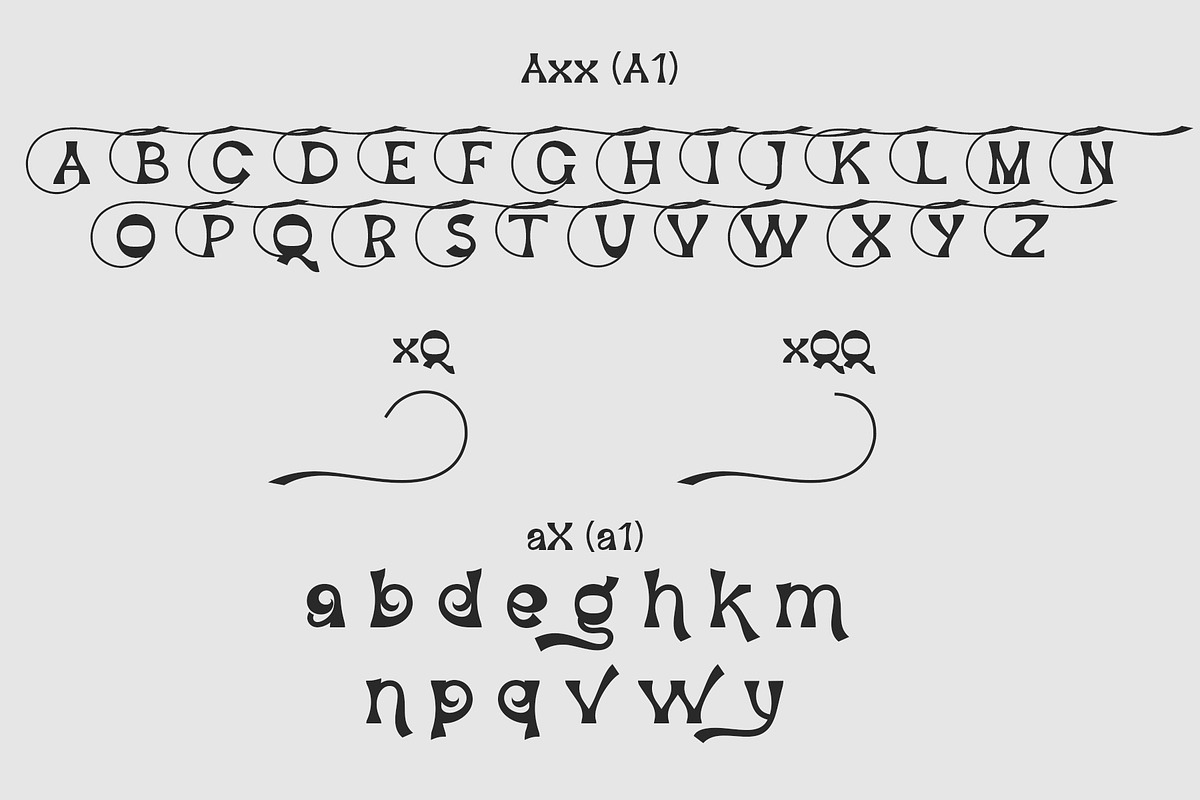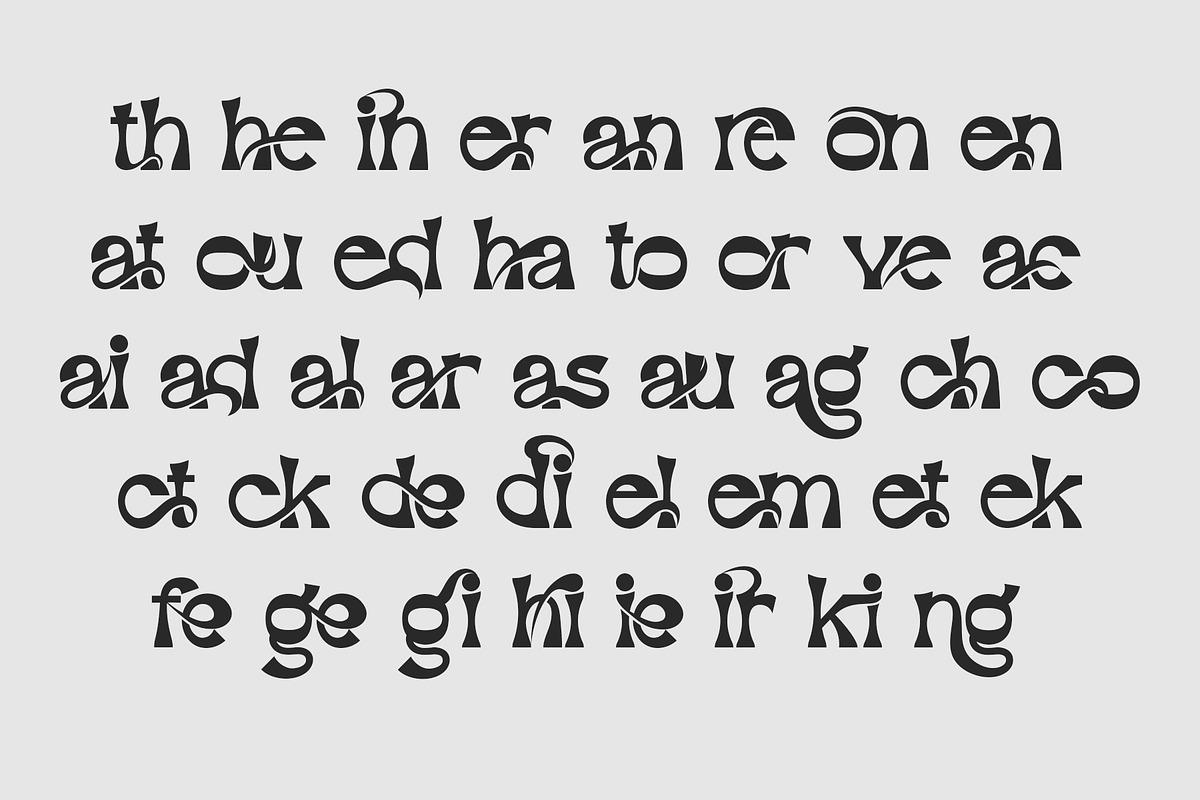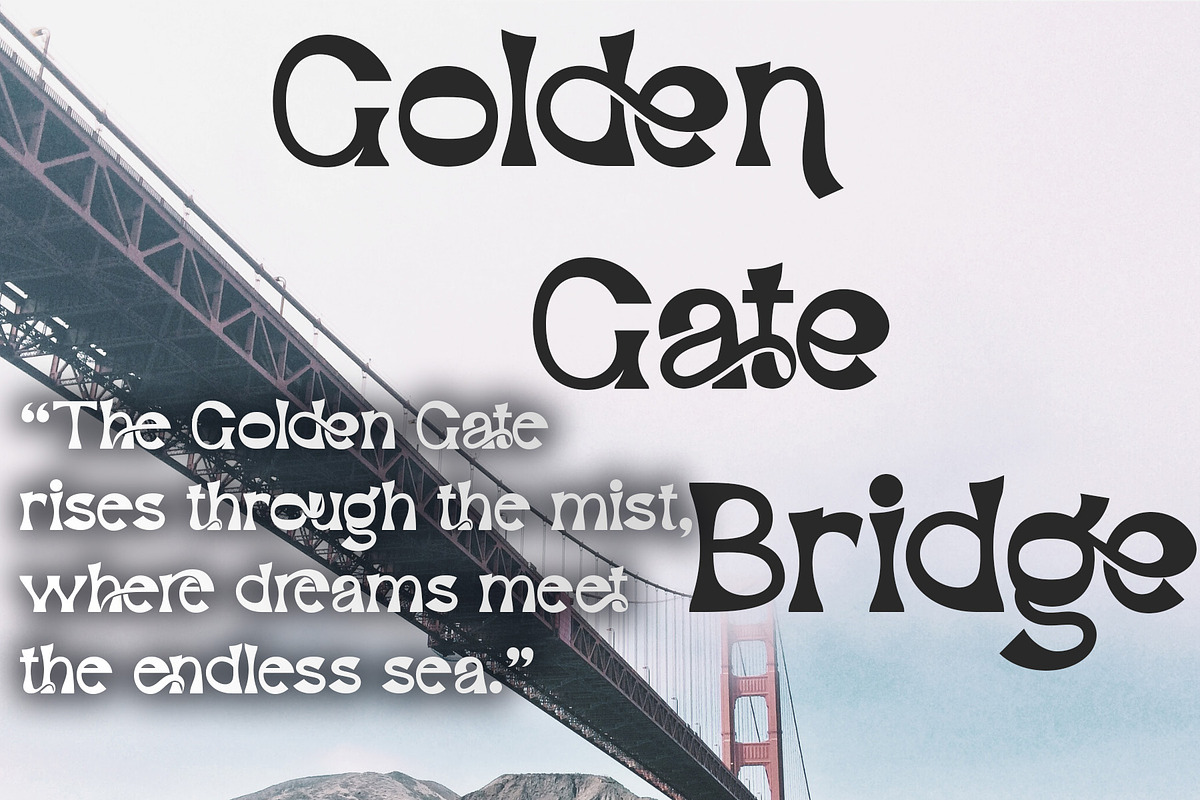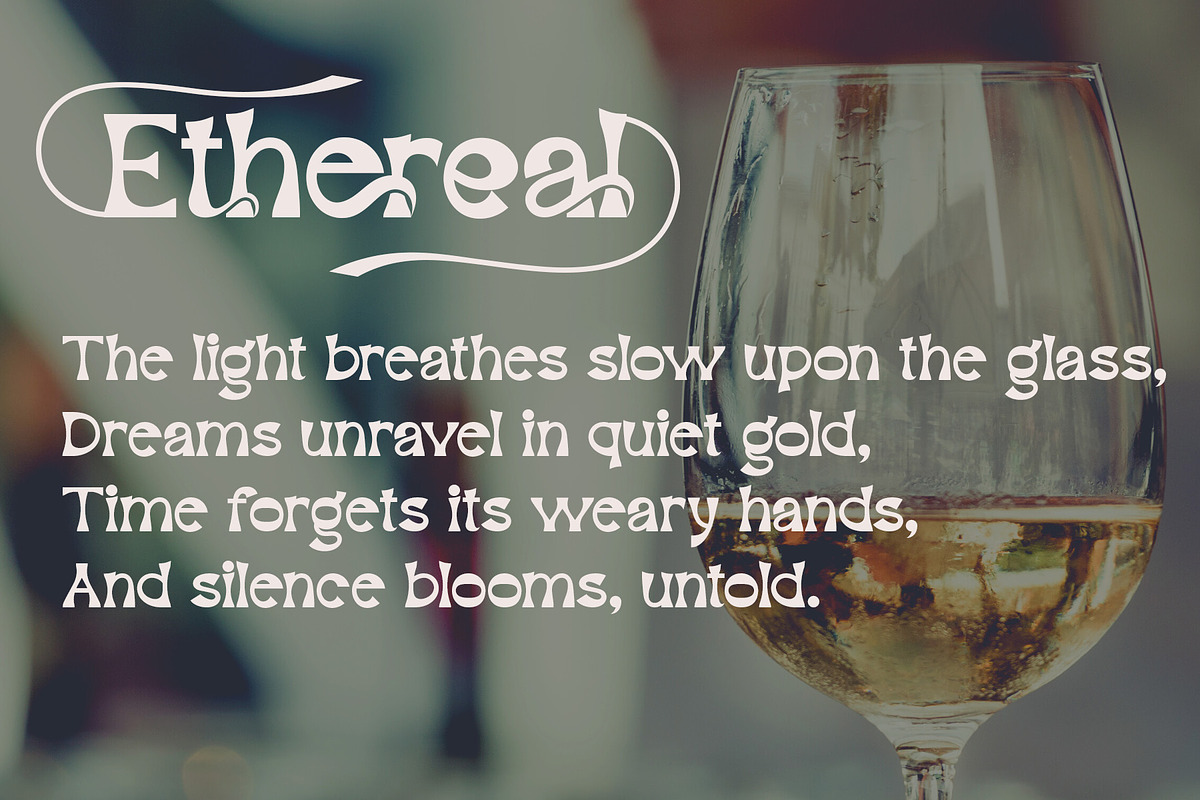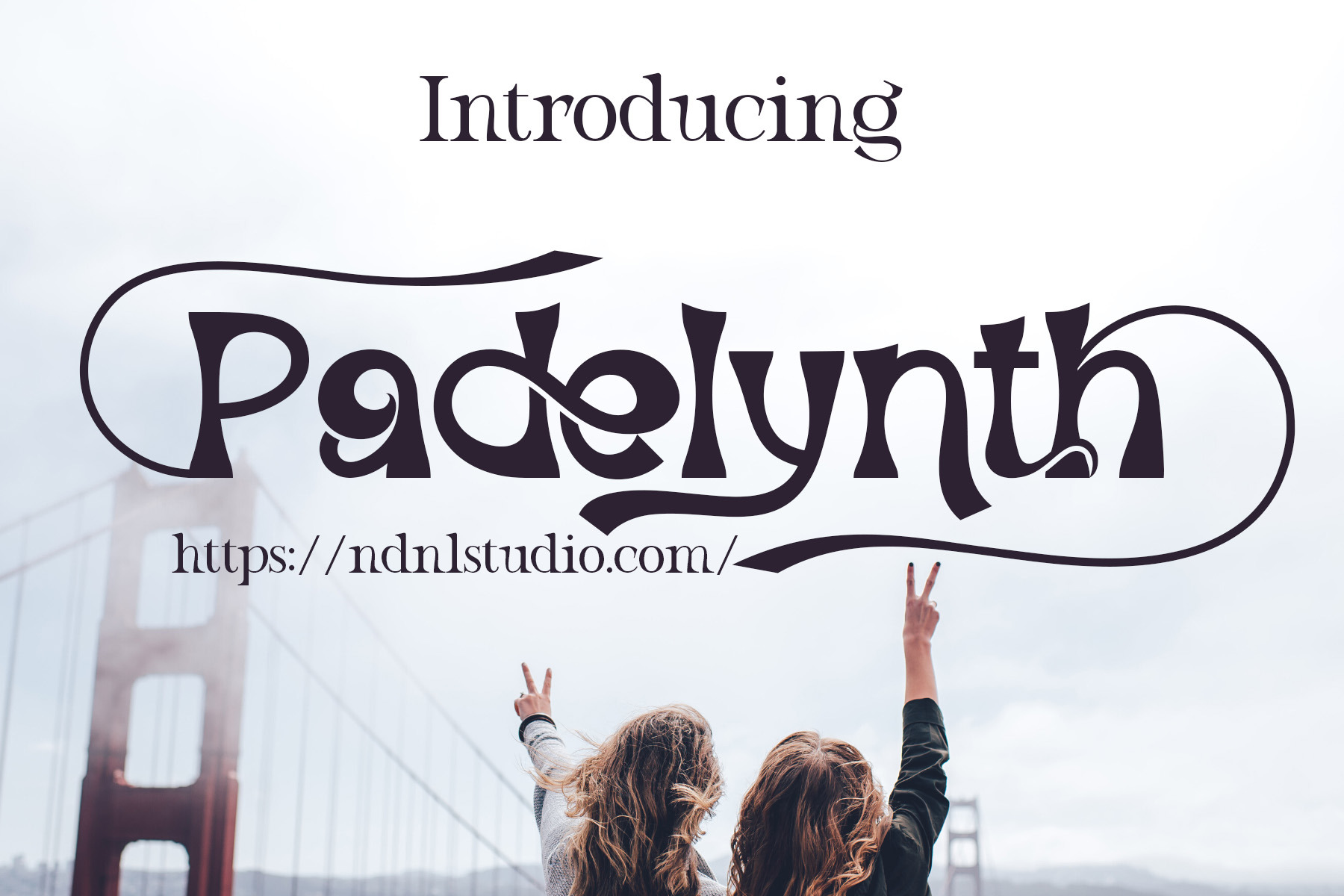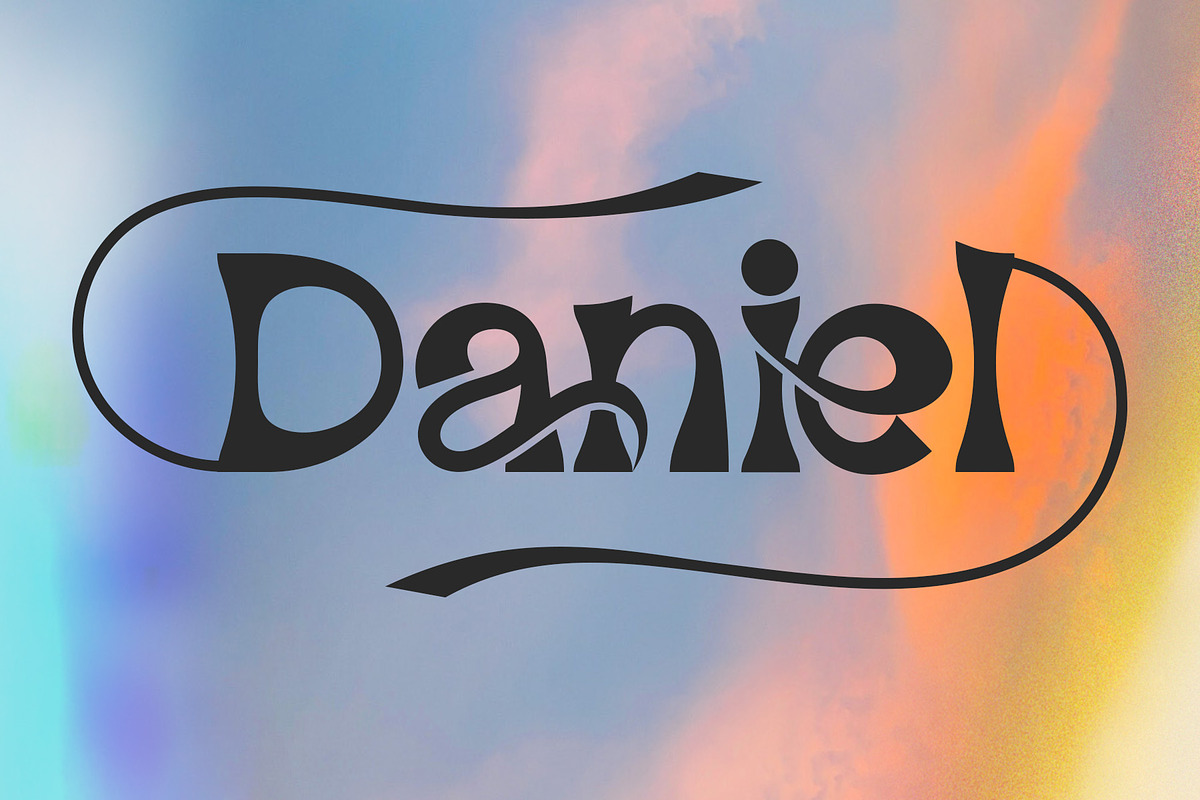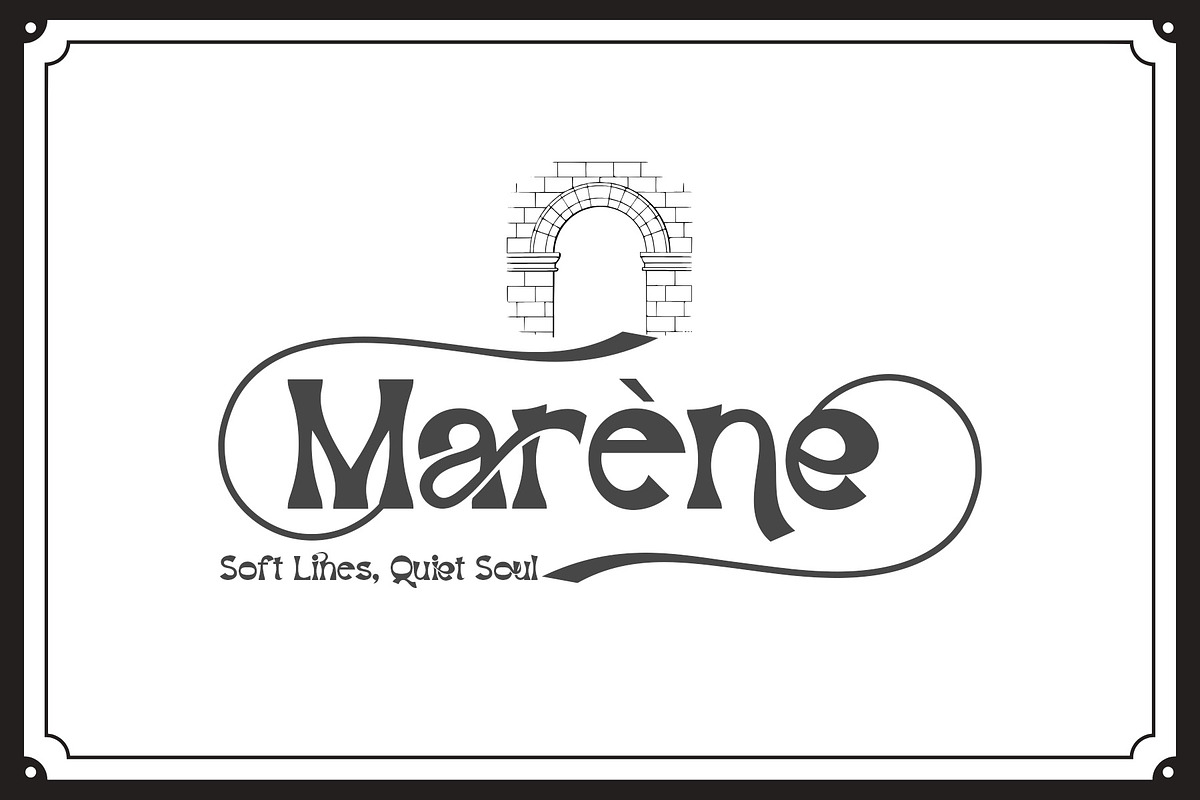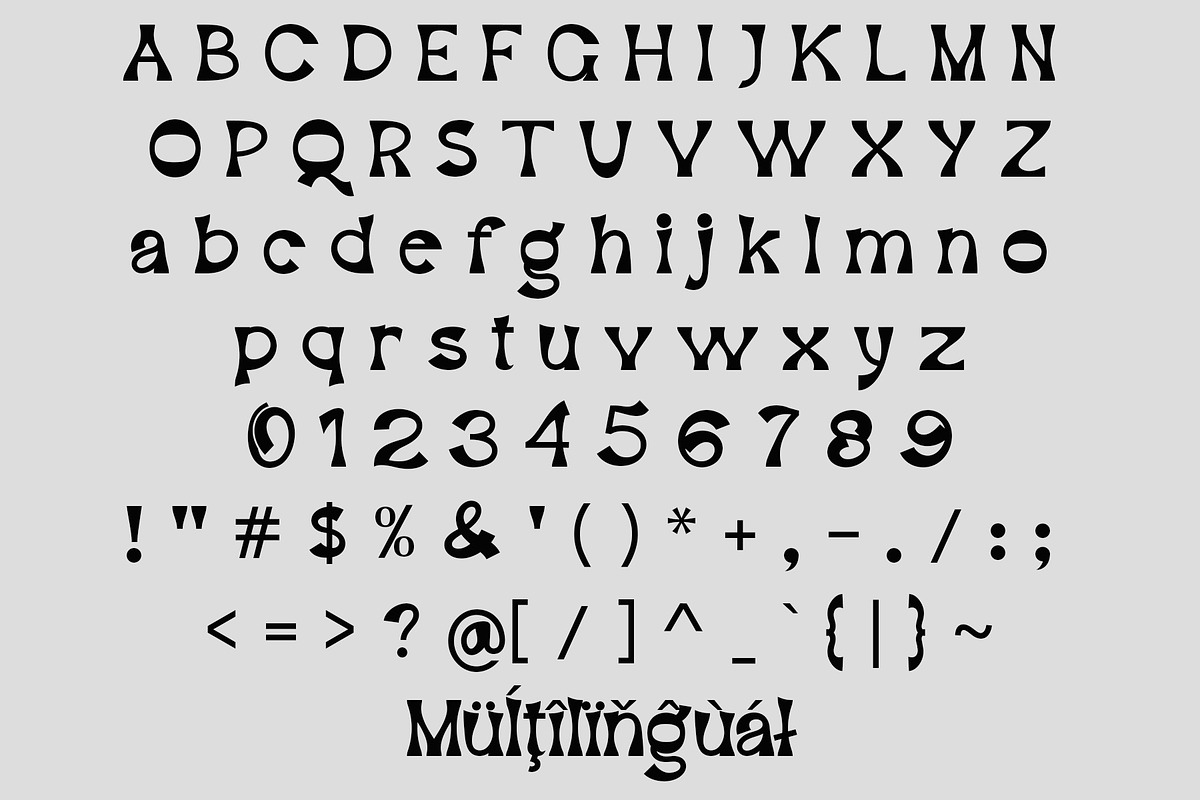
Padelynth – Serif Font
Introducing Padelynth!
Padelynth is a bold and artistic serif font crafted to make every word feel expressive and unforgettable. With its unique curves, elegant serifs, and playful handcrafted details, Padelynth brings a distinctive personality to your design. Whether used for branding, posters, album covers, wedding invitations, or logo designs, Padelynth turns typography into visual art.
Examples:
Axx → Decorative A (if available)
aX → Decorative a (if available)
And also:
AxX → Decorative A2 (if available)
aXX → Decorative a2 (if available)
aXXX → Decorative a3 (if available)
Swash:
xQ → Swash 1
xQQ → Swash 2
To separate ligatures: Insert the shortcut xXx between two characters.
- ab → axXxb → a b